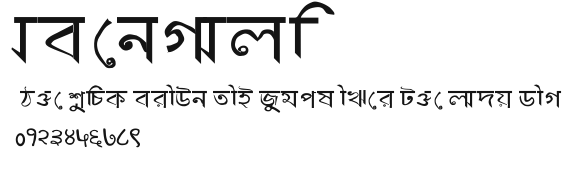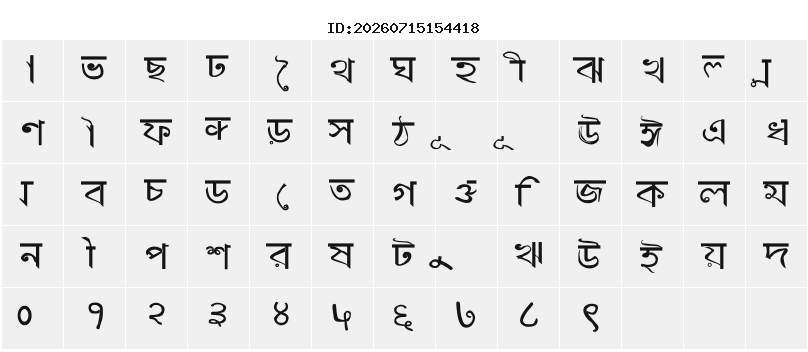
abengali Preview
About abengali.ttf
abengali.ttf is a modern, elegant sans-serif font designed for ultimate readability and visual harmony. Perfect for branding, headlines, web design, and print materials.